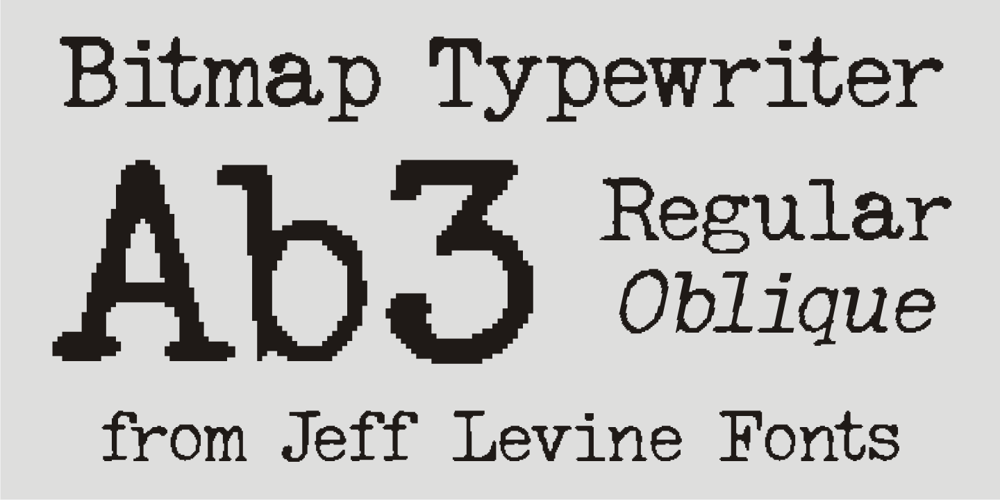
Bitmap Typewriter JNL Font Family was designed by Jeff Levine and published by Jeff Levine. Bitmap Typewriter JNL contains 2 styles and family package options. Auto-scanning an example of a vintage typewriter font created the design which is now the digital typeface Bitmap Typewriter JNL, available in both regular and oblique versions.